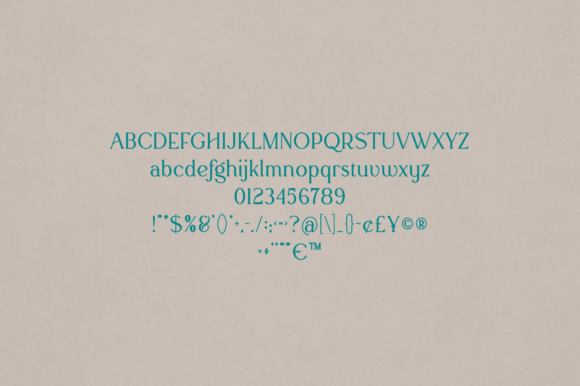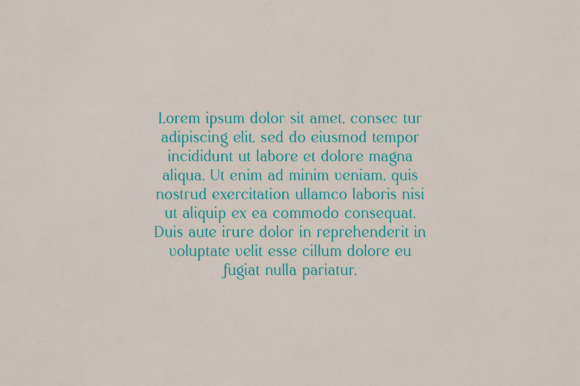
The Amara Font: Elevate Your Typography with Elegance and Versatility
I’ll never forget the moment I stumbled upon the Amara font while working on a branding project for a luxury home goods client. I had spent hours scouring font libraries and marketplaces, but nothing seemed quite right – until I saw Amara. Its elegant lines and versatile charm immediately captivated me, and I knew I had found the perfect fit. In this article, I’ll share my experience with Amara, its features, and how to make the most of this stunning font in your designs.
An Honest Review of Amara Font
What I Love About Amara ✨
- ✅ Elegant and sophisticated design, perfect for high-end branding and luxury projects
- ✅ Highly versatile, suitable for various design applications, from logos and headlines to body text
- ✅ Beautifully crafted with attention to detail, ensuring a premium look and feel
- ✅ Extensive OpenType features, including glyphs and stylistic alternates, offering endless creative possibilities
While Amara is an exceptional font, there are a few minor considerations to keep in mind:
- 🤔 Some users may find the font’s elegance and sophistication limiting for very casual or playful projects
The Story Behind Amara Font
Amara was designed by a team of skilled typographers who sought to create a font that would embody elegance, sophistication, and versatility. Inspired by classic serif fonts and modern design trends, Amara was crafted to meet the needs of designers and creatives looking for a premium font that could elevate their projects. While the exact story behind Amara’s creation may be shrouded in mystery, its impact on the design community is undeniable.
Q: What makes Amara font so special?
A: Amara’s unique blend of elegance, sophistication, and versatility makes it an exceptional font for various design applications.
Q: Is Amara suitable for body text?
A: While Amara is primarily designed for headlines and titles, its clear and elegant design makes it suitable for body text in certain contexts, such as luxury publications or high-end branding materials.